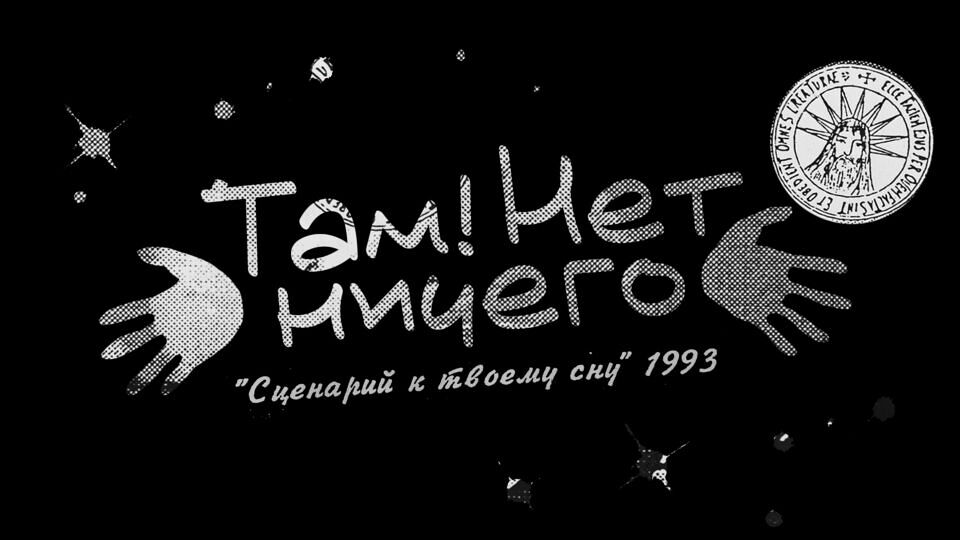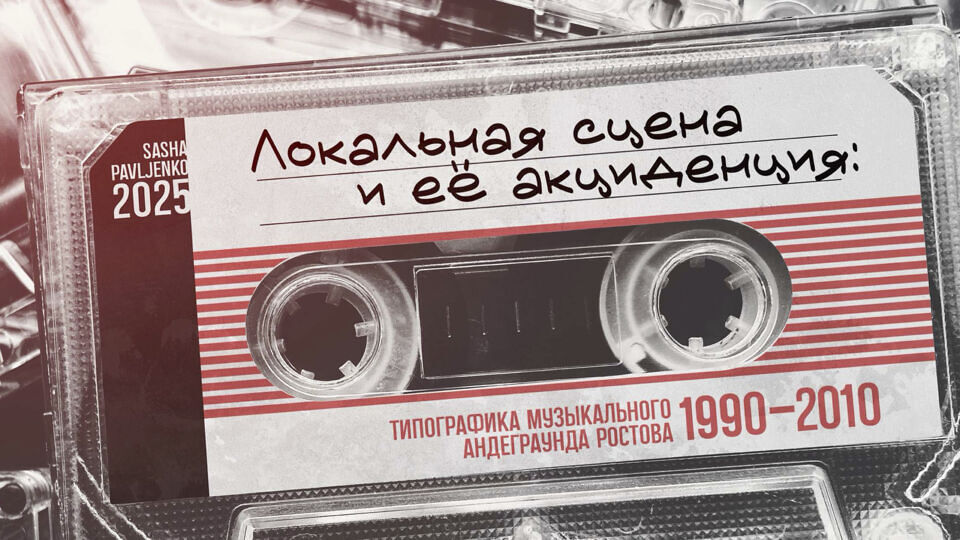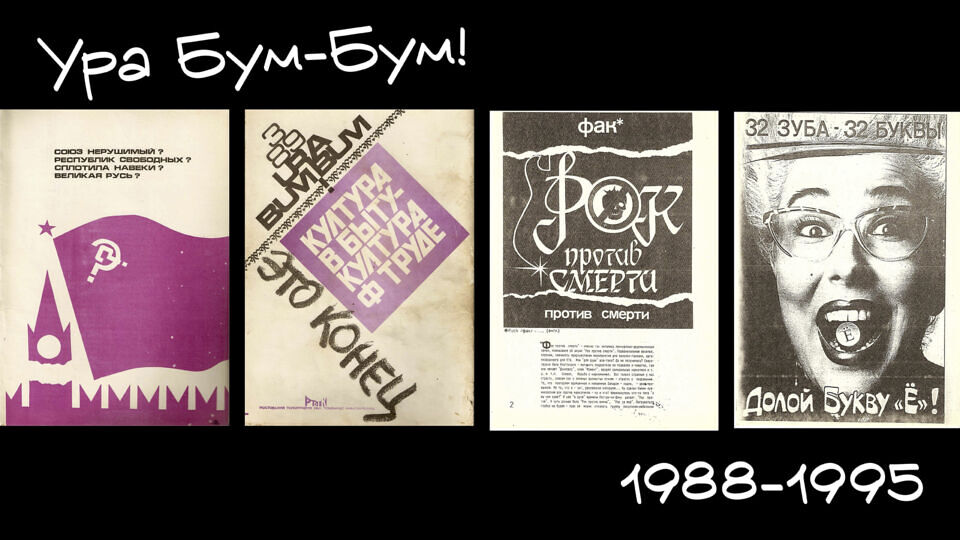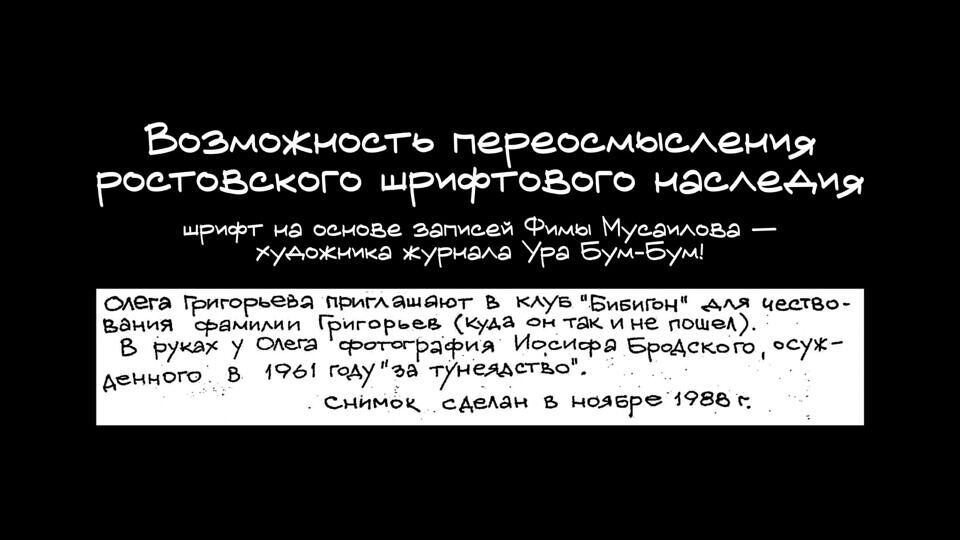
Ura Bum Bum SP font is based on handwritten notes by artist Fima Musailov in the magazine Ura Bum-Bum!, published in Rostov-on-Don from 1988 to 1995. It’s perfect for styling notes or mimicking a manuscript with an informal, youthful vibe.
It includes a full set of uppercase and lowercase characters for both Russian and English alphabets, along with numbers and punctuation marks.